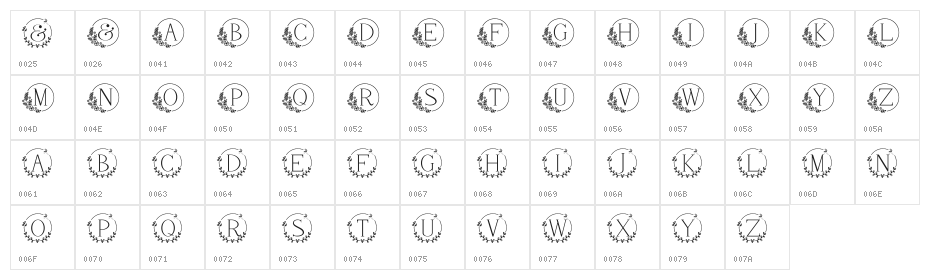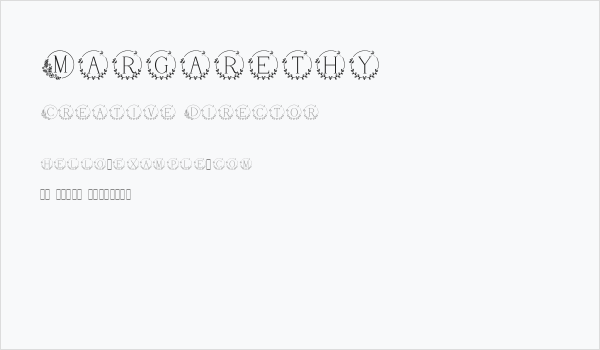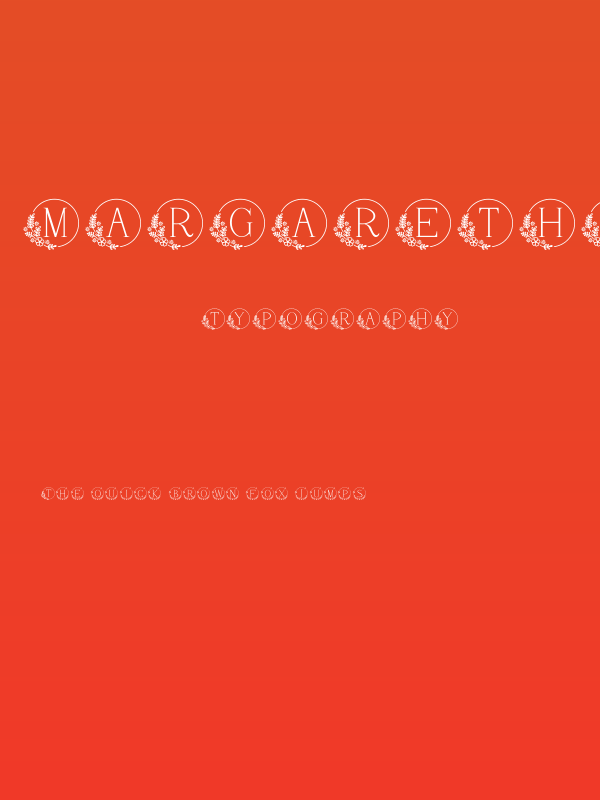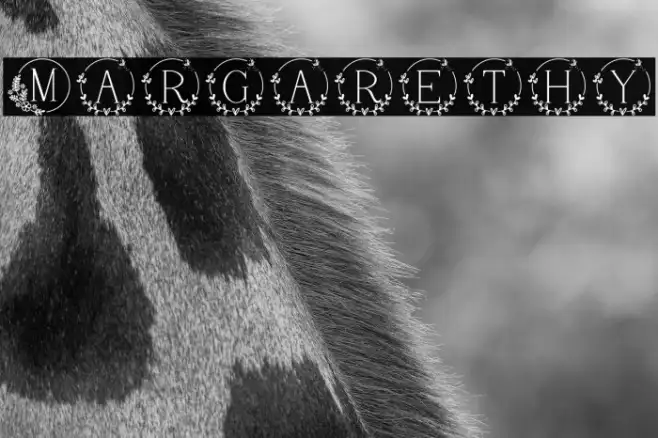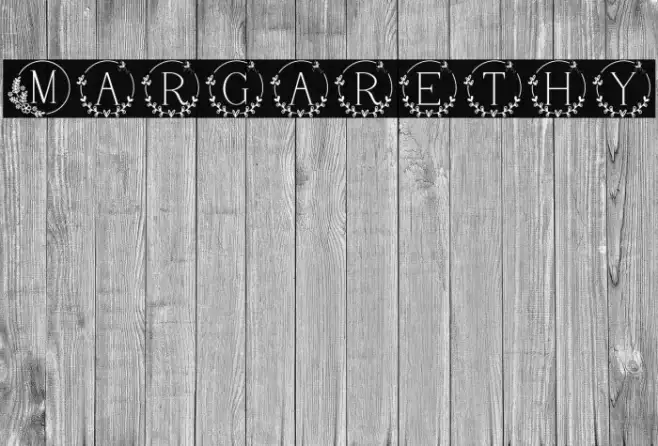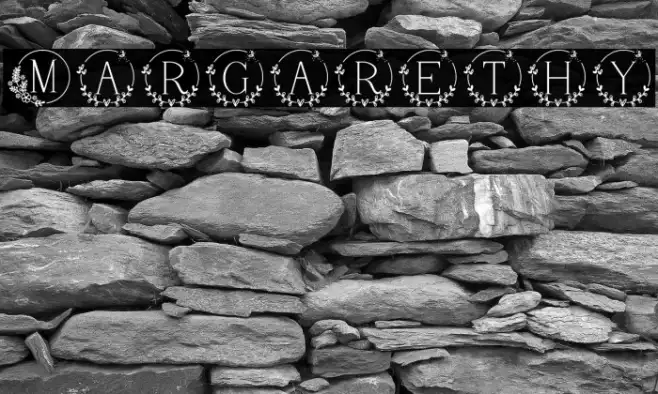
Margarethy Font
This decorative font features uppercase letters encased in circular frames adorned with floral motifs. Each letter is elegantly styled, with a consistent and balanced design that integrates nature-inspired elements. The floral decorations add a whimsical and artistic touch, making it ideal for projects that require a sophisticated yet playful aesthetic. The font's unique style is perfect for creating personalized monograms, wedding invitations, or branding materials that seek to convey elegance and creativity.
| Use Case | Logos, Invitations, Decorative Text |
| Proposed Projects | Perfect for wedding invitations, personalized monograms, branding, and decorative projects. |